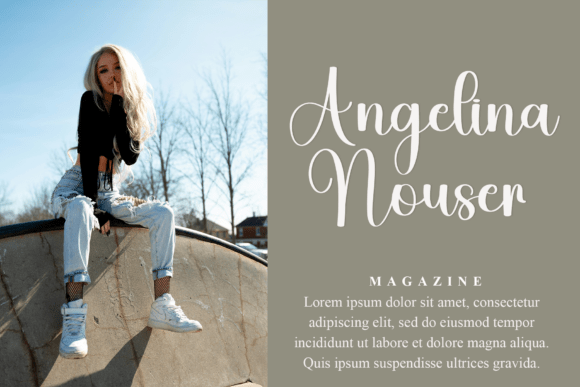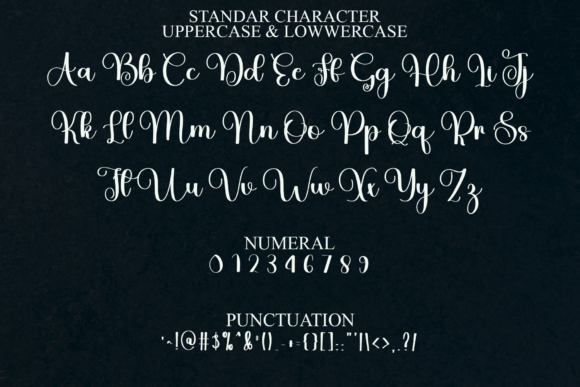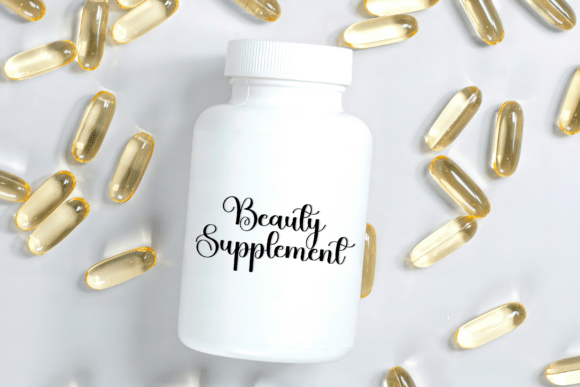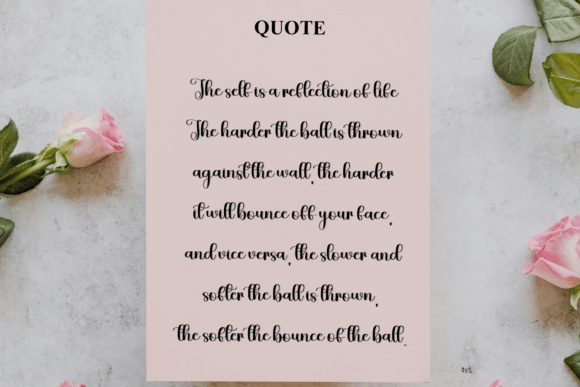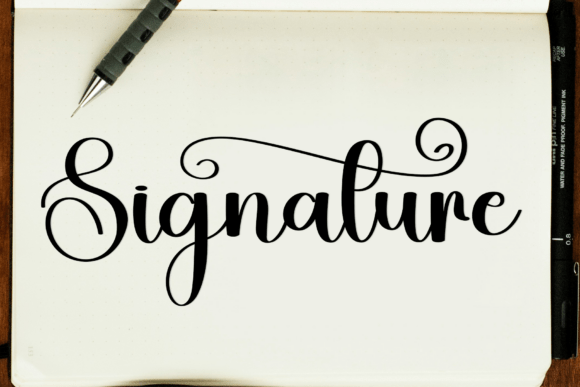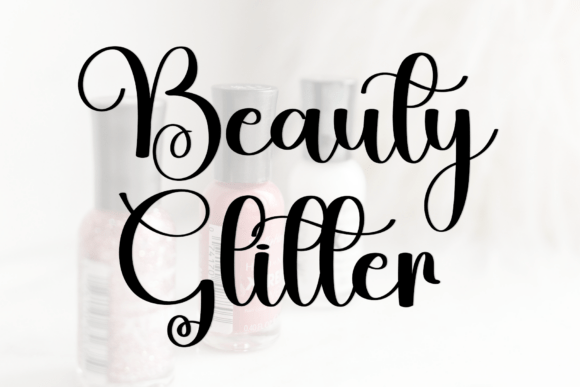
Introducing Beauty Glitter Font: Elevate Your Designs with Elegance
Are you on the hunt for a font that adds a touch of sophistication and glamour to your projects? Look no further than the Beauty Glitter Font. This stunning, flowing handwritten font is designed to bring an elegant touch to your favorite designs, making it perfect for crafters, designers, and anyone looking to create spectacular visual content.
The Beauty of Beauty Glitter Font
Beauty Glitter Font is described by its incredibly distinct and timeless style, which is sure to capture the hearts of designers and crafters alike. Its elegant touch is perfect for a wide range of projects, from wedding invitations and party decorations to branding and advertising materials. With its unique blend of sophistication and playfulness, this font is sure to make your designs stand out from the crowd.
Key Features of Beauty Glitter Font
- Flowing Handwritten Style: Beauty Glitter Font boasts a beautiful, flowing handwritten style that adds a touch of elegance to any design.
- Elegant Touch: This font is designed to bring a sense of sophistication and glamour to your projects, making it perfect for high-end designs.
- Distinct and Timeless Style: The Beauty Glitter Font has a unique and timeless style that will make your designs stand out from the crowd.
- Perfect for Various Projects: Whether you’re working on wedding invitations, party decorations, branding materials, or advertising content, this font is sure to impress.
Why Choose Beauty Glitter Font?
There are many fonts available on the market, but Beauty Glitter Font stands out from the rest due to its unique features and benefits. Here are just a few reasons why you should consider choosing this font for your next project:
- Easy to Read: Despite its elegant and cursive style, Beauty Glitter Font is easy to read, making it perfect for body text and headlines.
- Versatile: This font can be used for a wide range of projects, from digital content to print materials.
- High-Quality: Beauty Glitter Font is a high-quality font that is designed to deliver exceptional results.
- Pair it with Other Fonts: Beauty Glitter Font pairs well with other fonts, such as sans-serif fonts and script fonts.
- Experiment with Colors: This font looks great in a variety of colors, from metallic colors to pastels.
- Use it for Headlines and Titles: Beauty Glitter Font is perfect for headlines and titles, but it can also be used for body text.
Here are a few tips and tricks for designers and crafters looking to get the most out of Beauty Glitter Font:
- Use it for Wedding Invitations: This font is perfect for wedding invitations and other wedding-related materials.
- Create Beautiful Party Decorations: Beauty Glitter Font can be used to create stunning party decorations, such as banners and garlands.
- Elevate Your Branding: This font can be used to elevate your branding materials, such as logos and business cards.
In conclusion, Beauty Glitter Font is a stunning, flowing handwritten font that is perfect for designers and crafters looking to add a touch of elegance to their projects. With its incredibly distinct and timeless style, this font is sure to make your designs stand out from the crowd. Whether you’re working on wedding invitations, party decorations, branding materials, or advertising content, Beauty Glitter Font is the perfect choice.